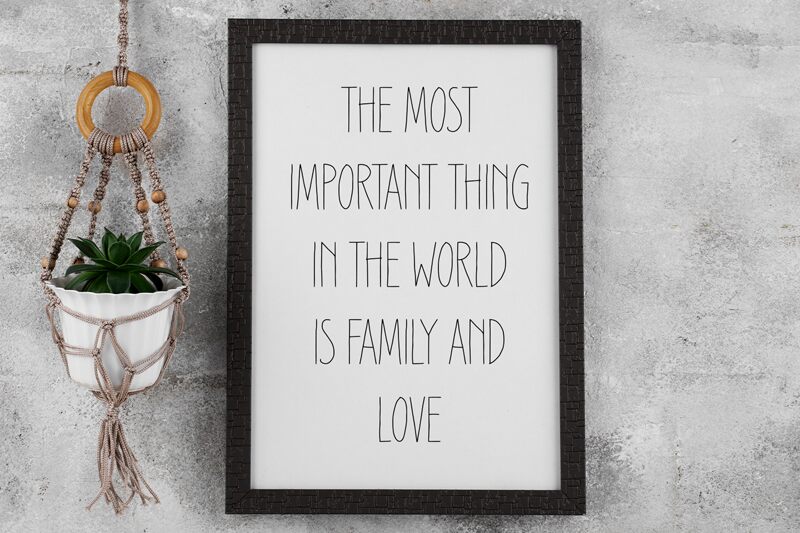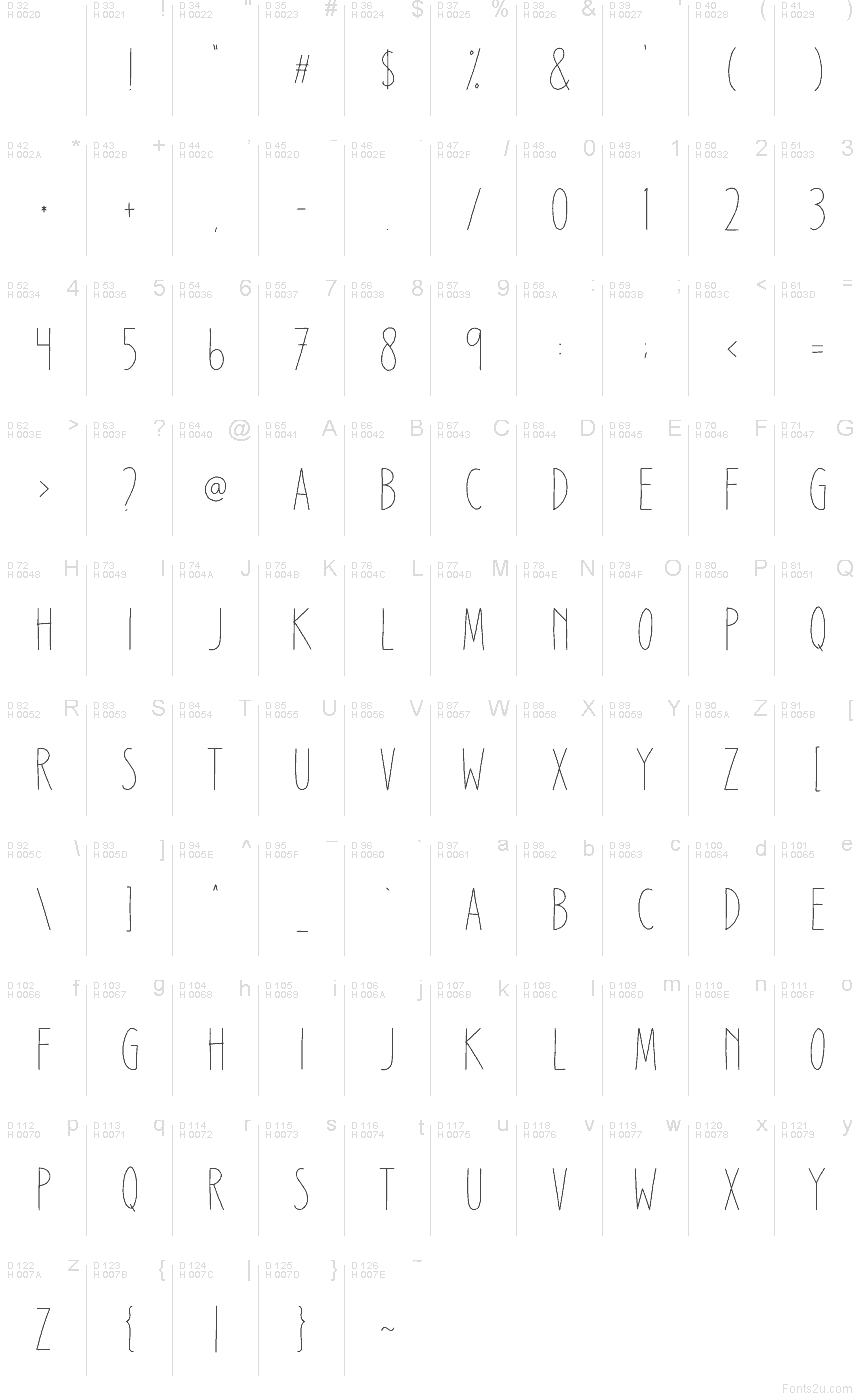
Snowblack
Snowblack font by Abo Daniel Studio is a free handwritten font with a wispy, ink-light line and tall, airy letterforms that feel like they were drawn with a fine pen in one breath. The gentle curls and stretched rhythm give it a frosty, storybook elegance—delicate but still readable on clean backgrounds.
Using Snowblack, you’ll get a graceful voice for boutique logos, beauty packaging, wedding details, book covers, quote graphics, café menus, and social promos that need a soft signature touch. Keep it slightly larger so the thin strokes stay crisp, and pair it with a calm geometric sans for body text to let this free font do the sparkling headline work.